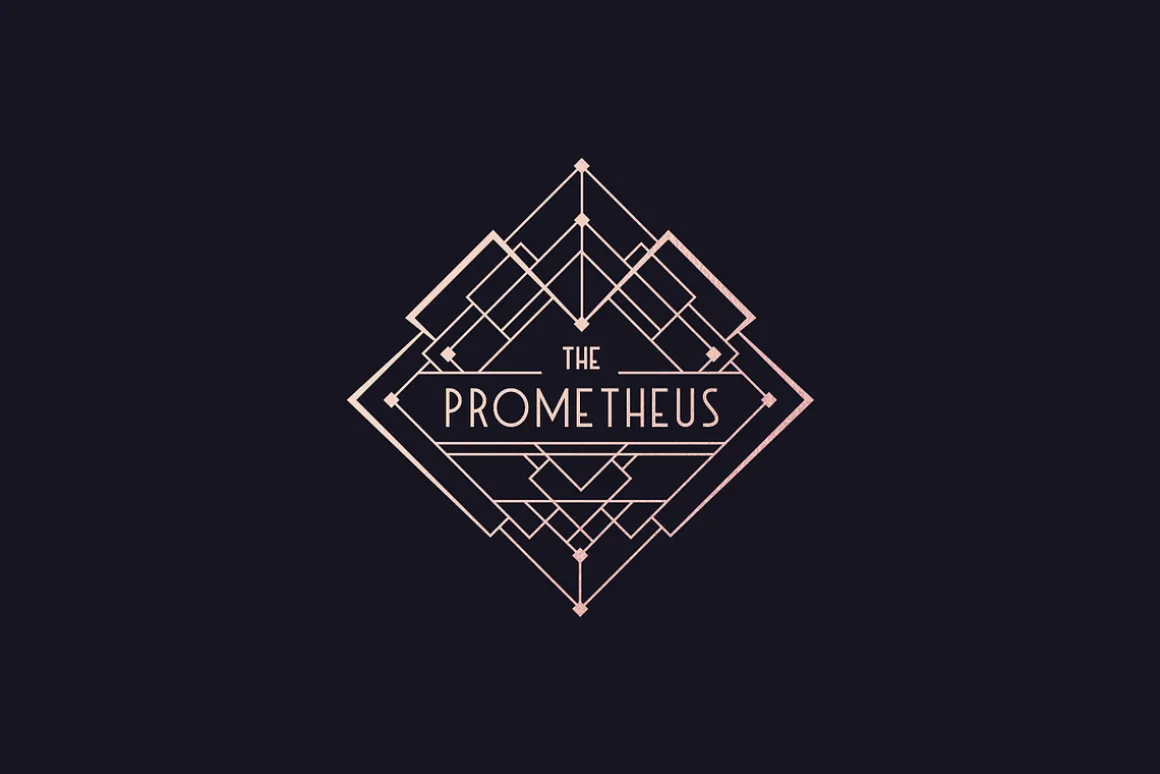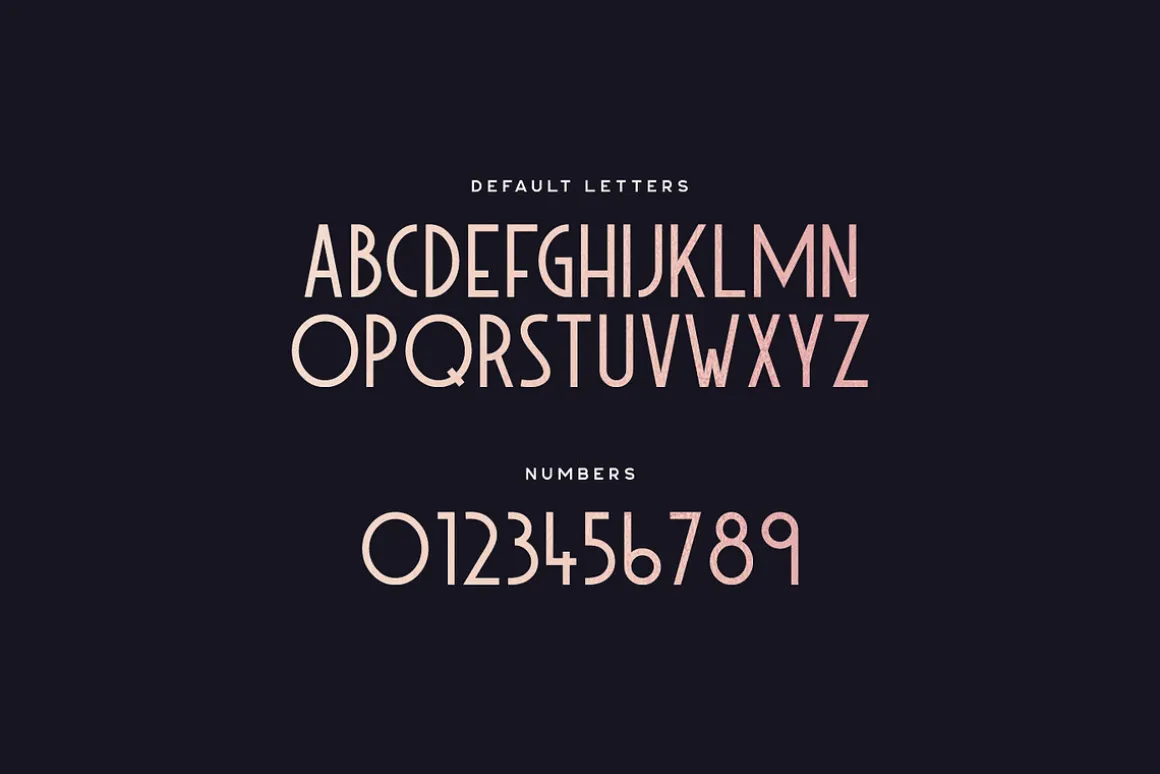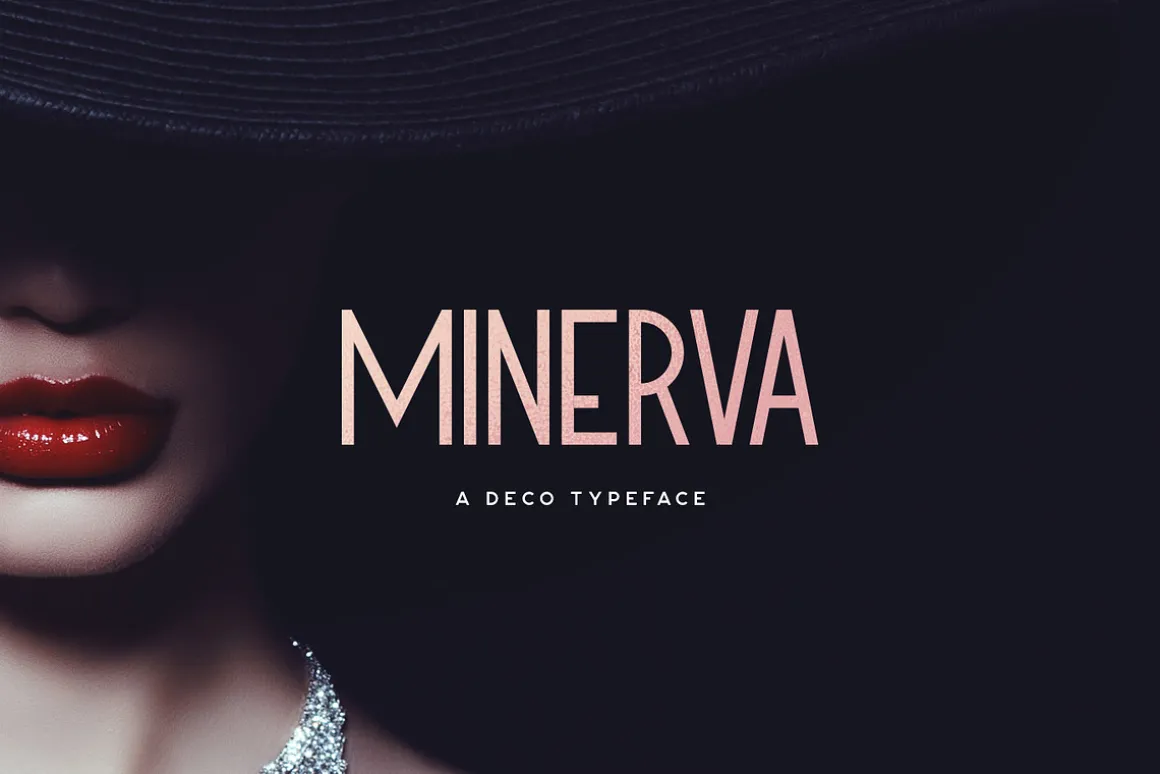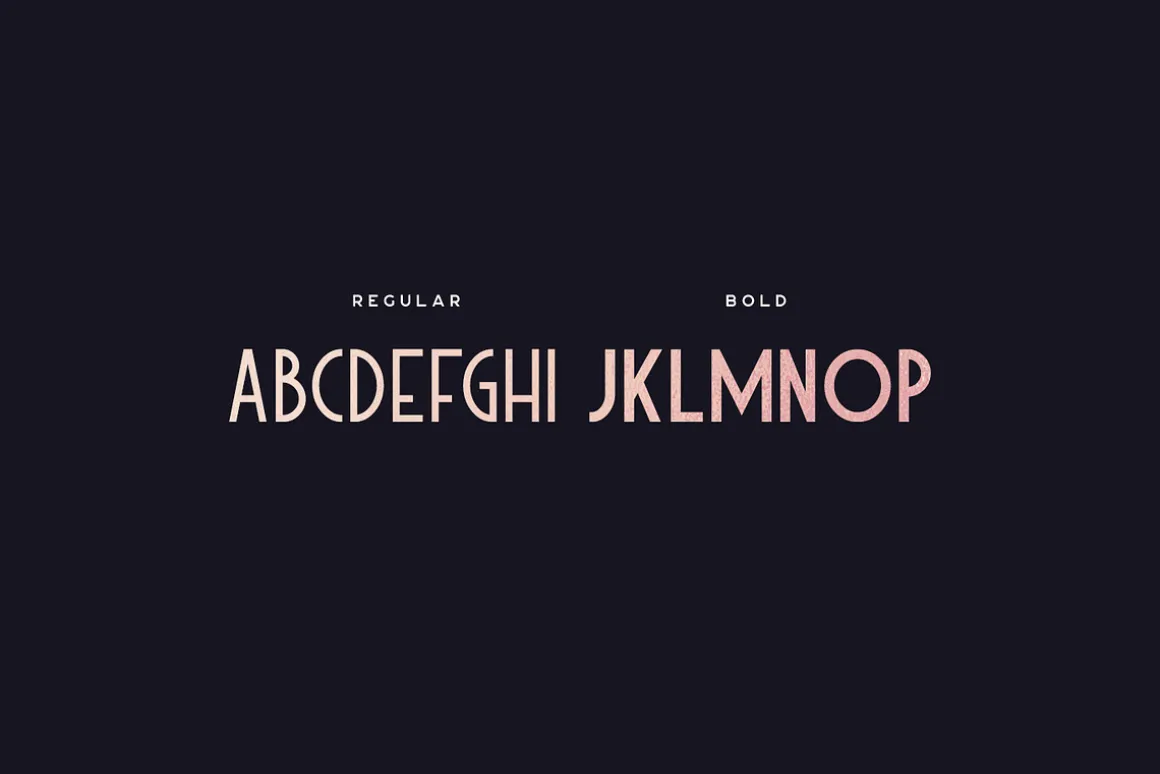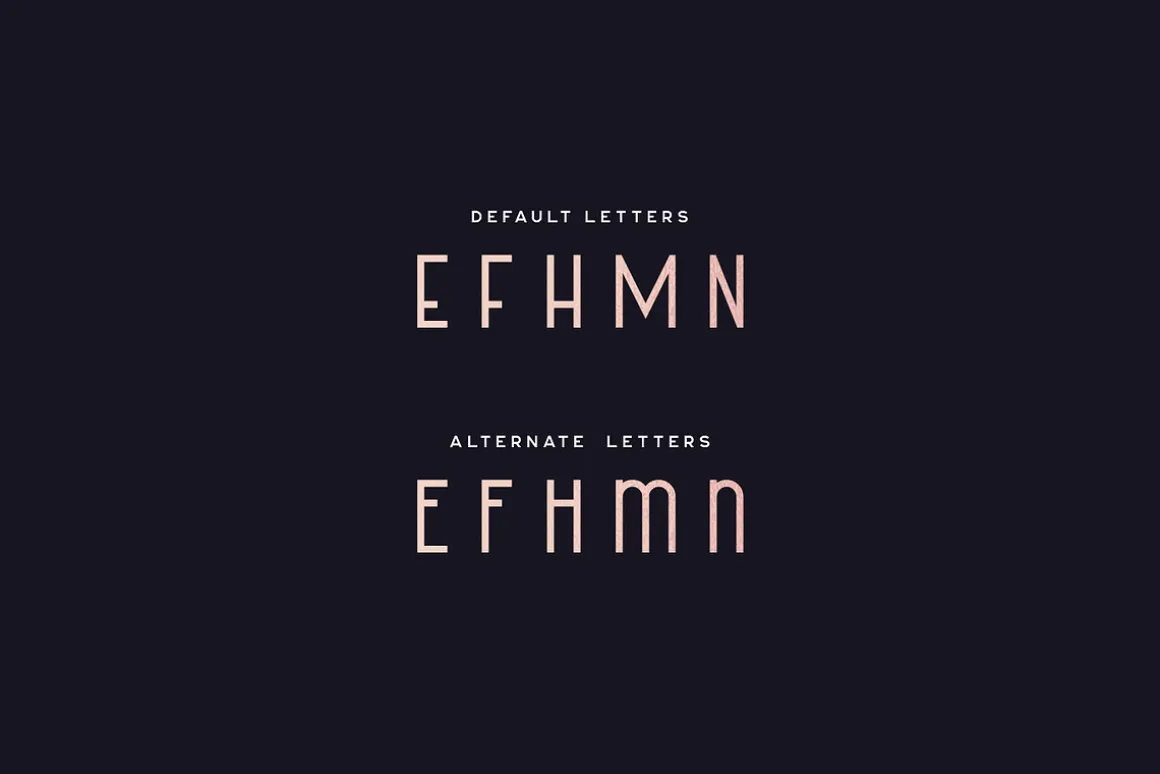
Minerva is an Art Deco themed typeface in two weights. It features a geometric design and has some alternate letters which can be toggled via caps lock.
The font includes multilingual letters, numbers and punctuation.